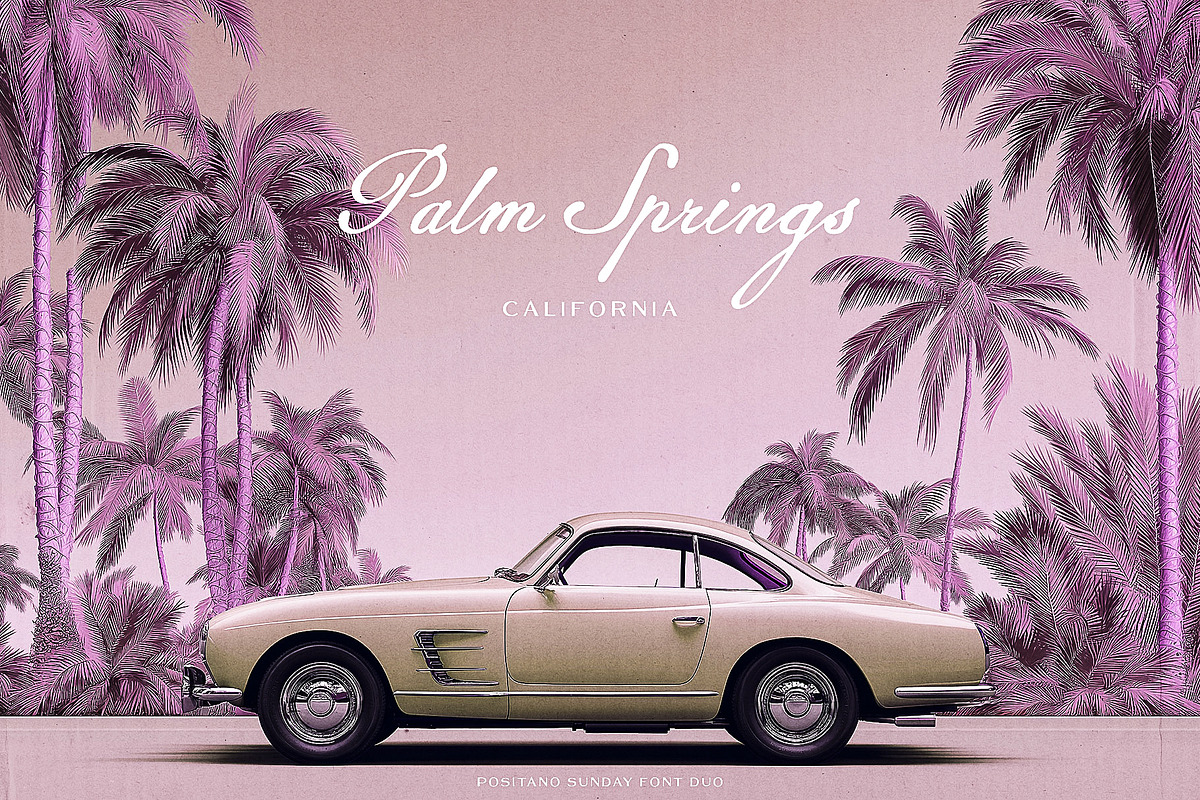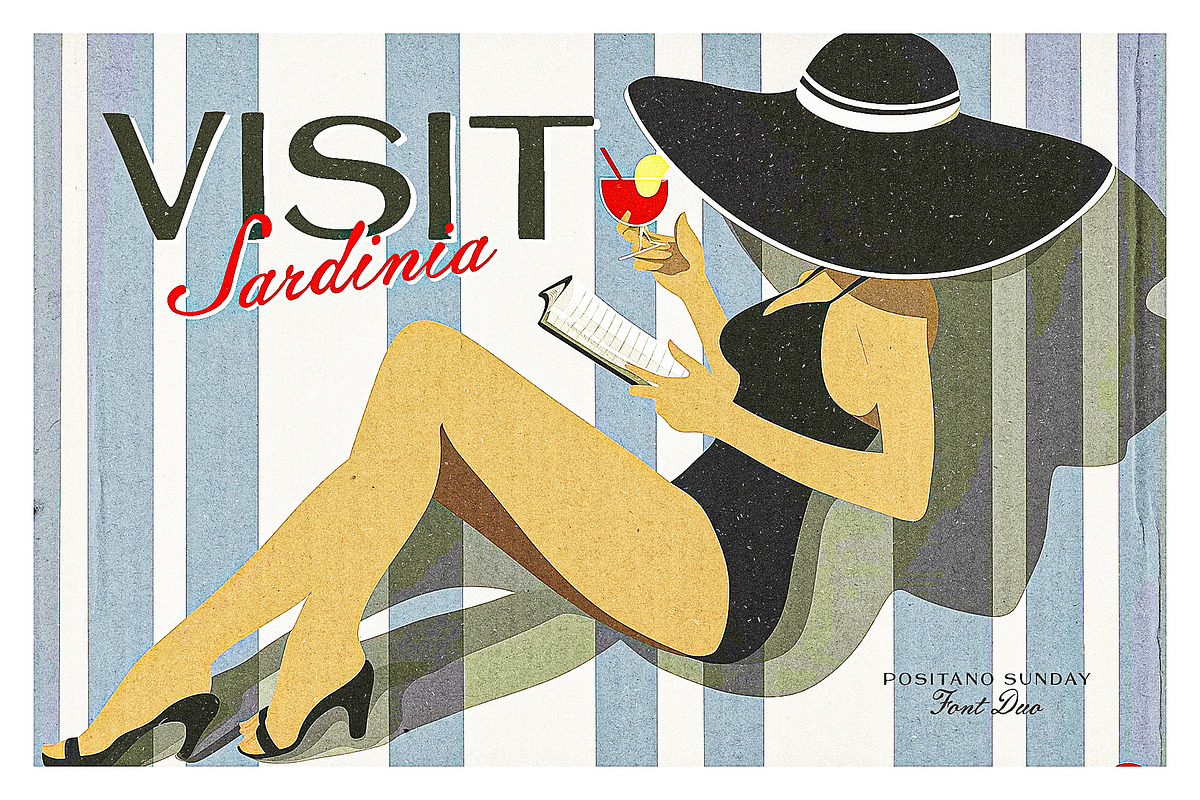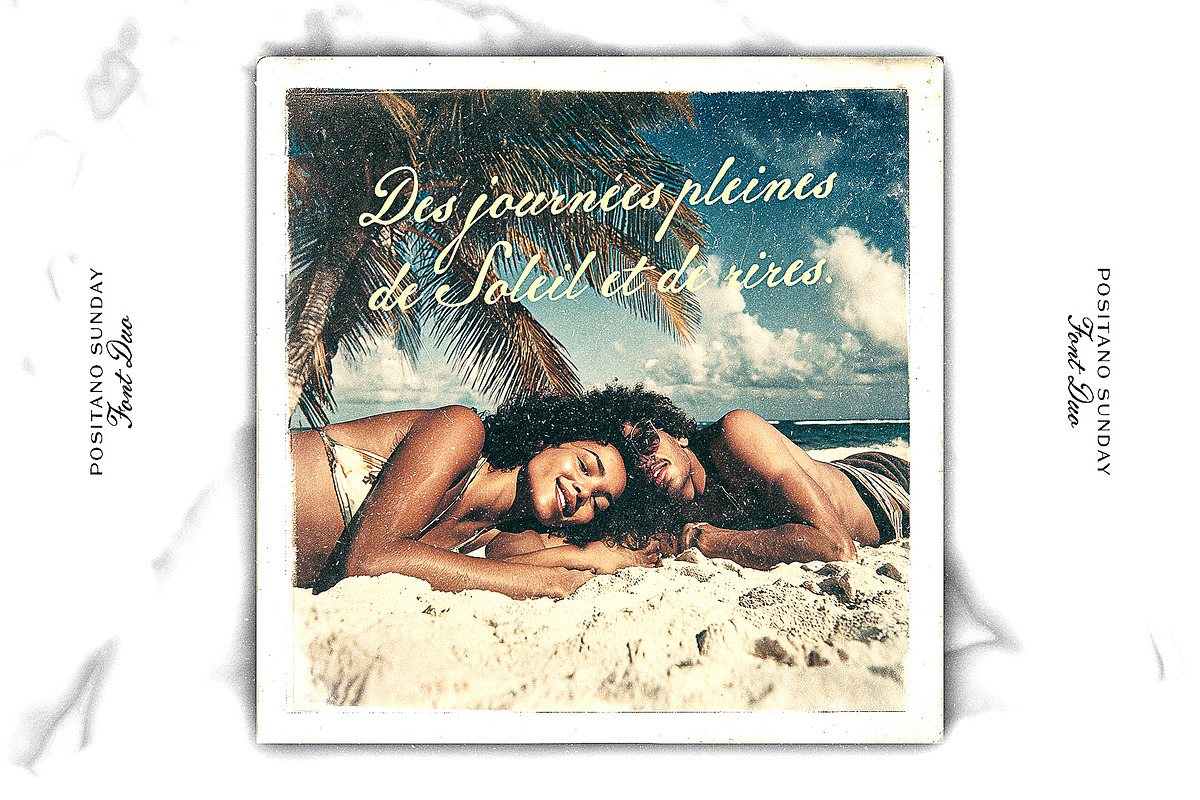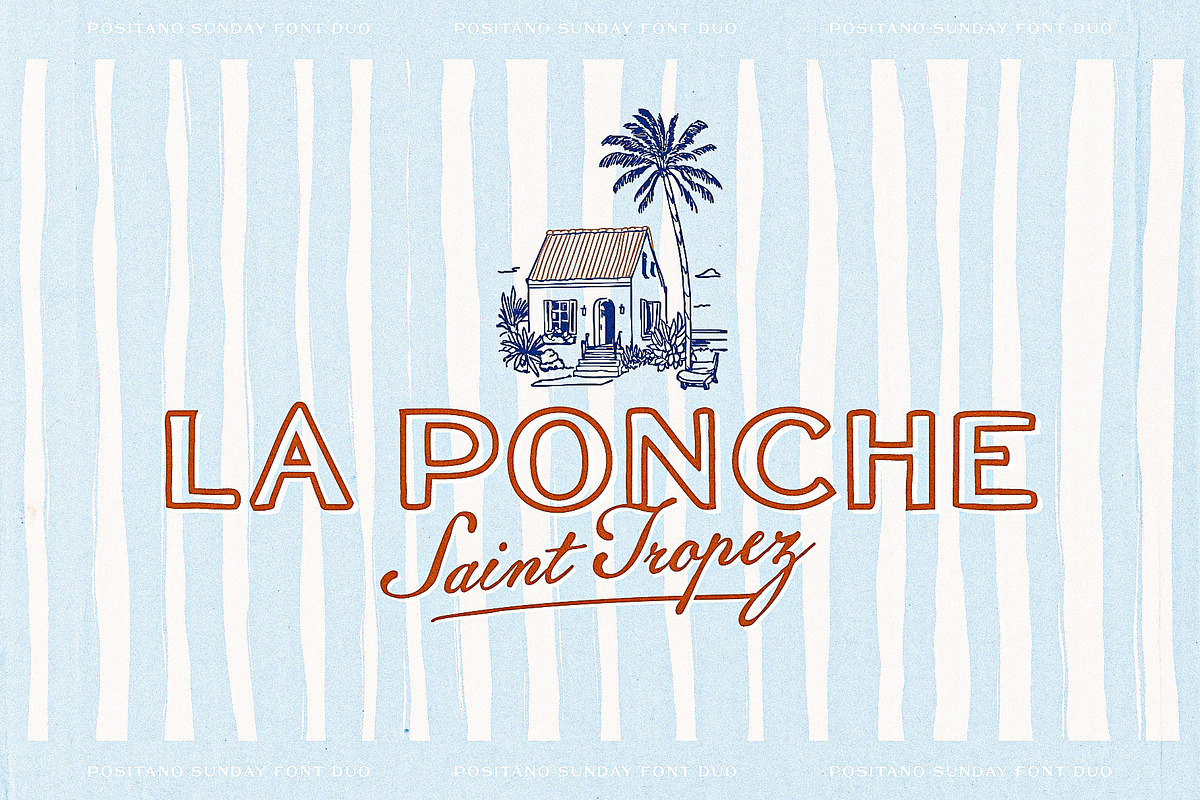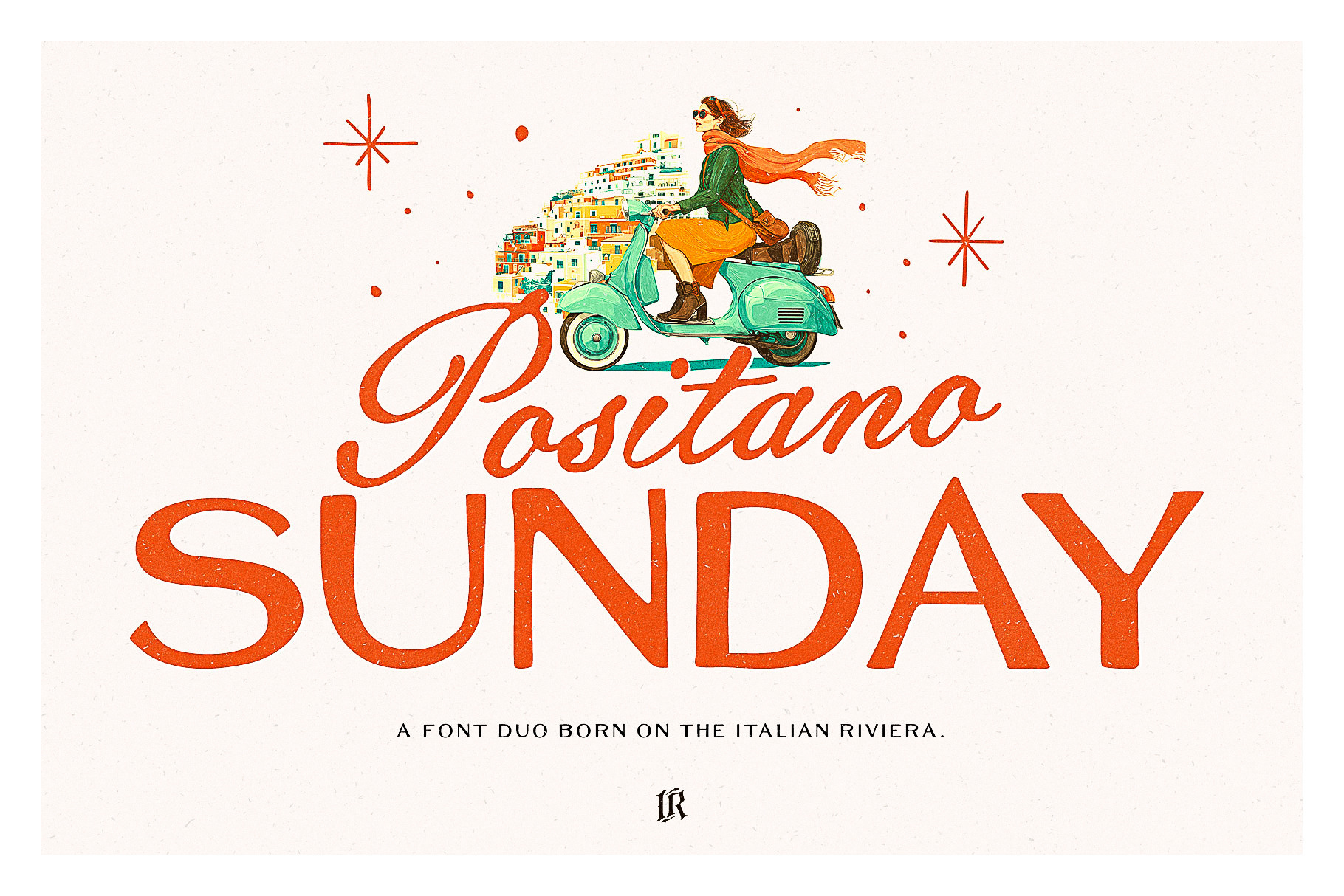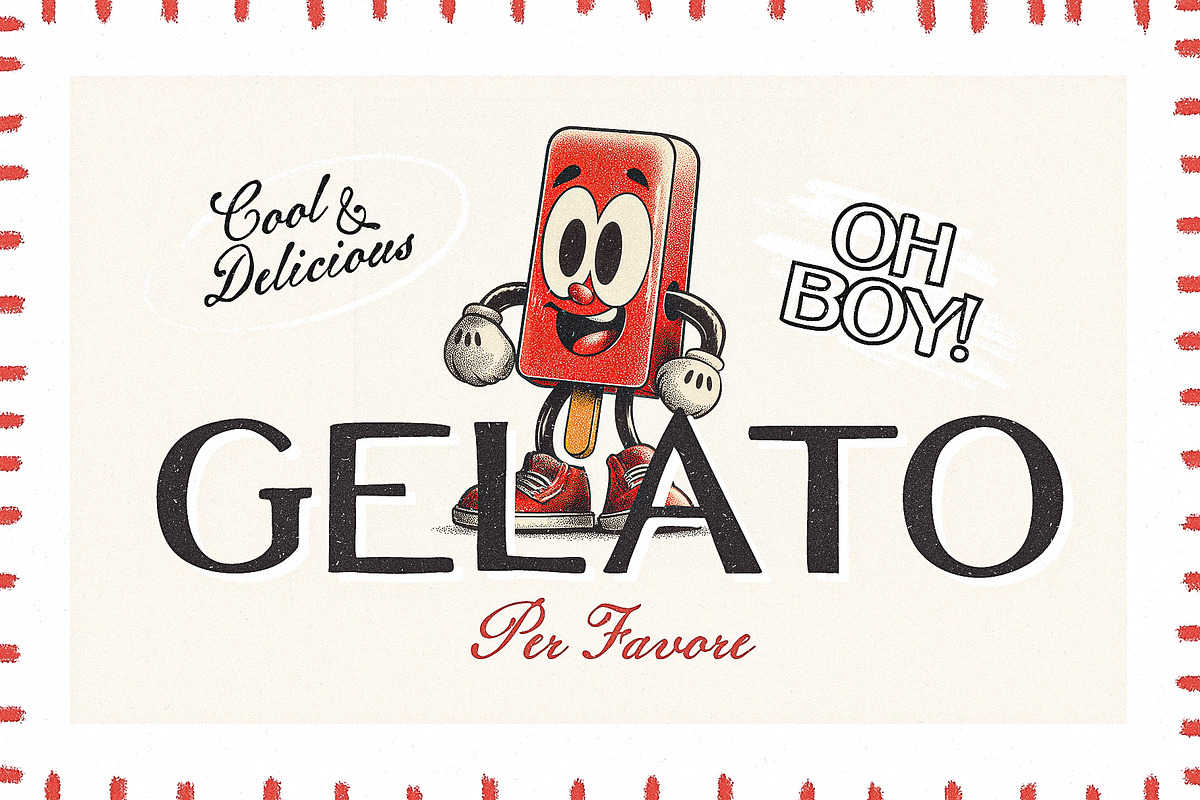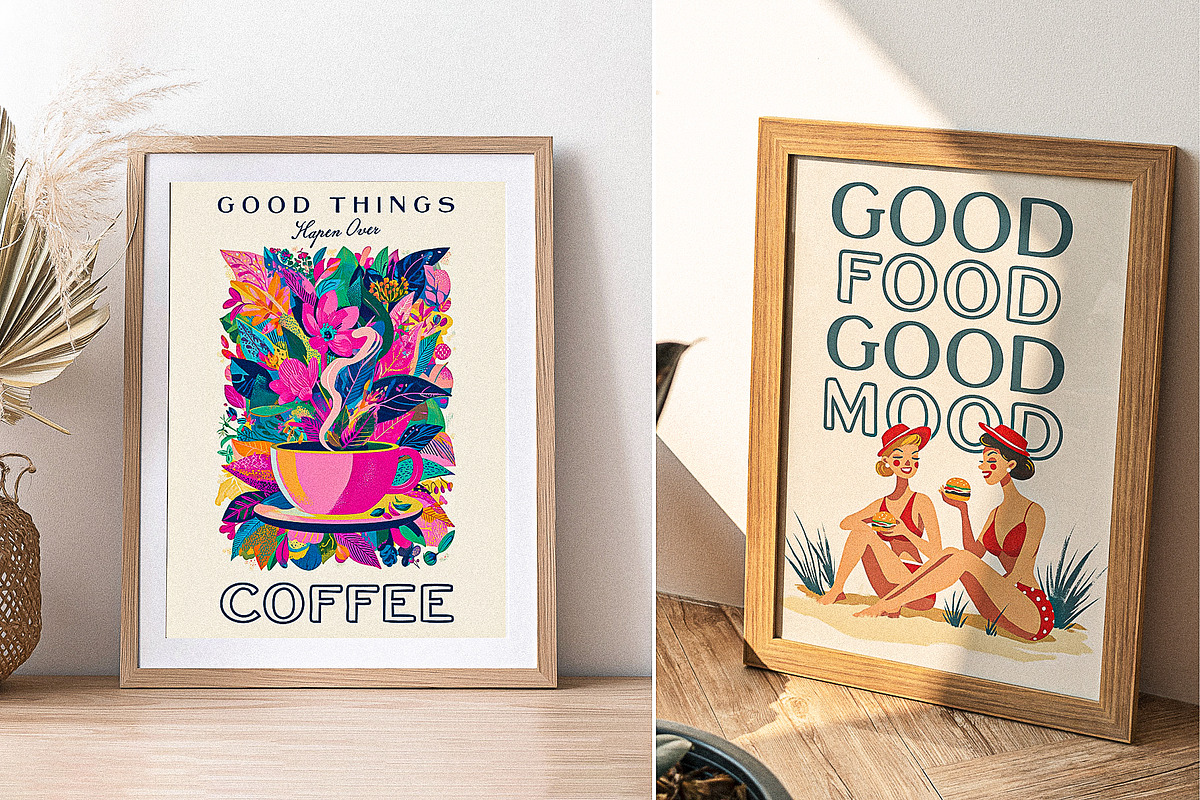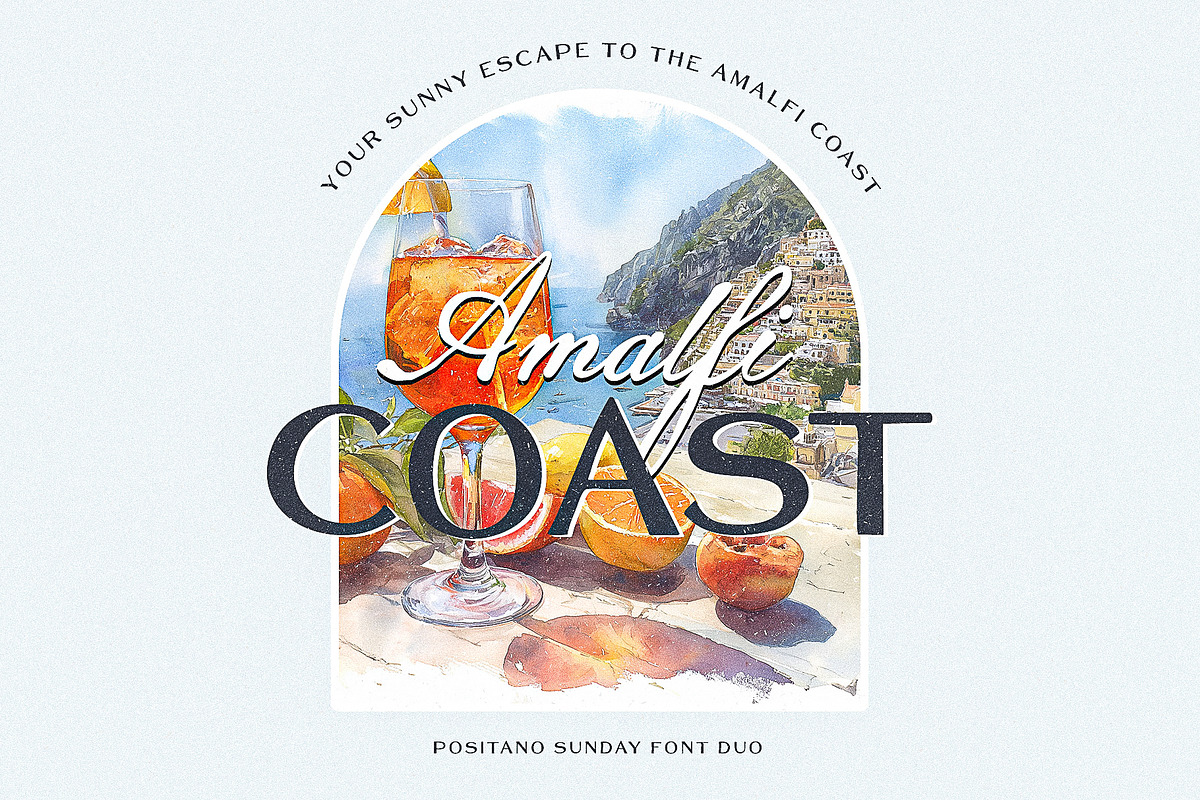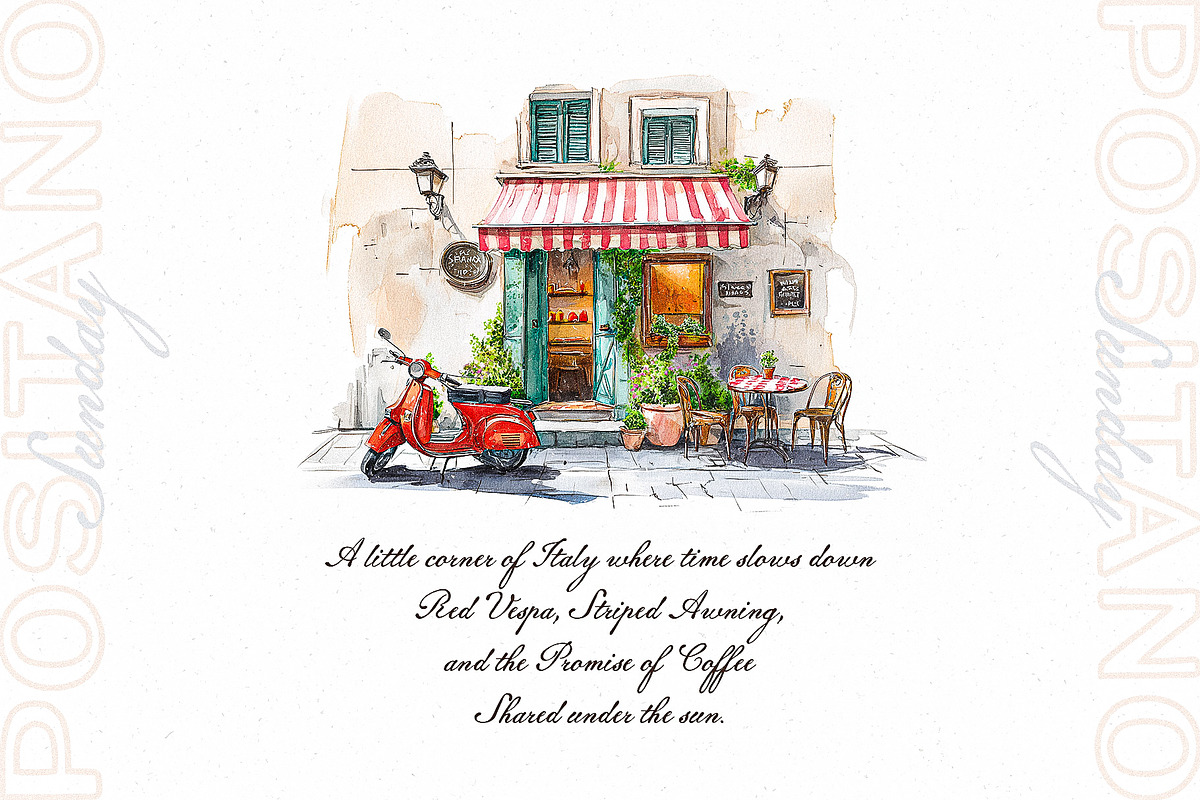
Positano Sunday Font Trio
Positano Sunday Font Trio is a set of three typefaces inspired by the sunny Italian Riviera, vintage posters, and the charm of Mediterranean cafés and restaurants. This pack blends elegance with playfulness – perfect for branding, packaging, posters, or social media.
Positano Sunday captures the carefree spirit of a Sunday on the Italian coast – joyful, relaxed, and effortlessly stylish. With three complementary fonts, you’ll have all you need to create unique, sunny, and memorable designs.
- Retro Sans – a bold, clean sans serif with a nostalgic 60s vibe.
- Script – a lively handwritten script that adds warmth and personality.
- Outline Sans – an outline version of Retro Sans for stylish contrast and creative layering.
Perfect for
- café, bar, and restaurant logos & branding
- vintage-inspired posters and packaging
- lifestyle content and social media graphics